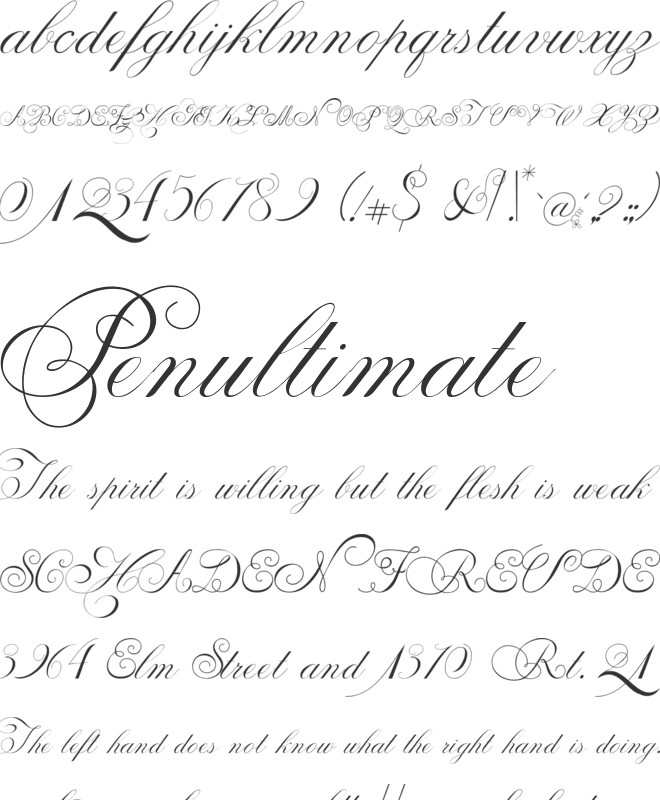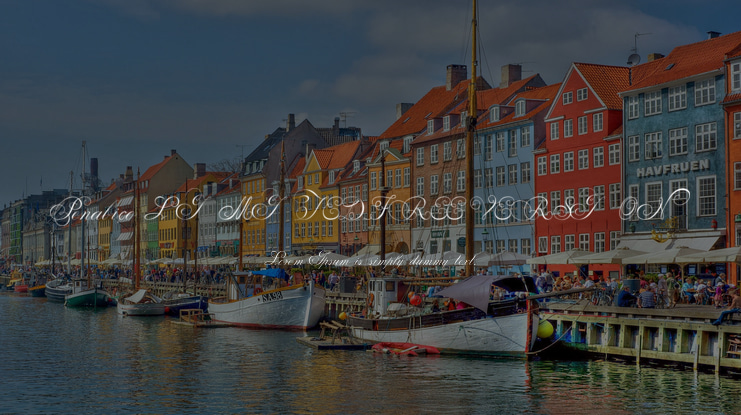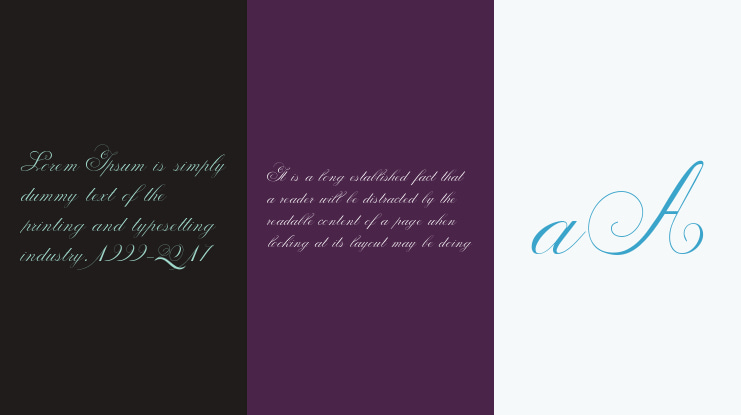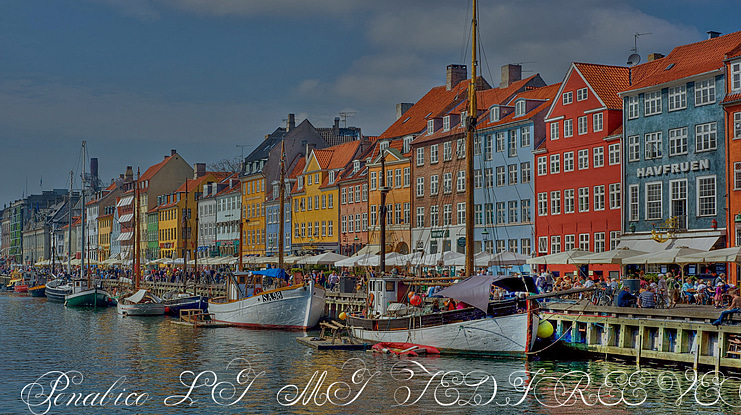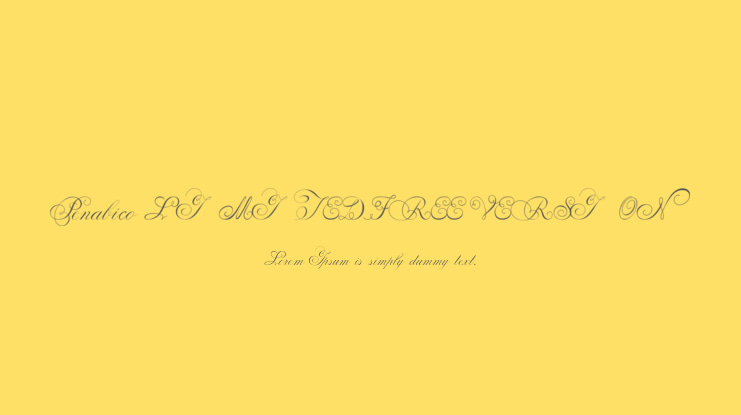
Penabico Limited Free Version, by Intellecta Design
In 1733, London master letterer George Bickham collected penmanship samples from 26 of his contemporaries and published The Universal Penman. Thanks to Bickham’s monumental compilation, eighteenth-century English Roundhand became one of the most popular styles of formal writing; in recent years it inspired several digital typefaces. Penabico is Intellecta Design’s free interpretation of the genre. It comes with loads of stylistic alternates, ligatures, ornaments and fleurons, as well as abbreviations and intricate, ready-made calligraphic words. While the enhanced OpenType version contains all these goodies and more, some of the ornaments, catch words and other glyphs are accommodated in supplementary fonts for easier access in non-OpenType-savvy programs.